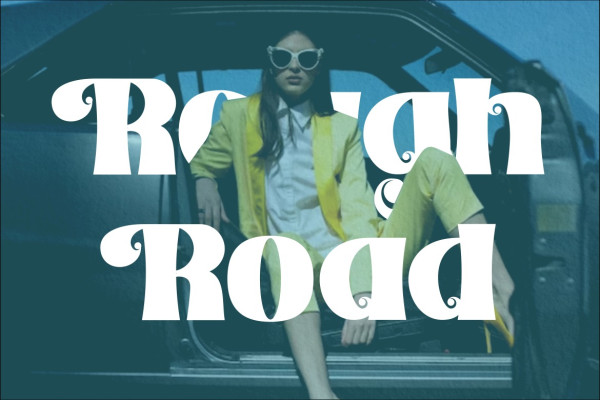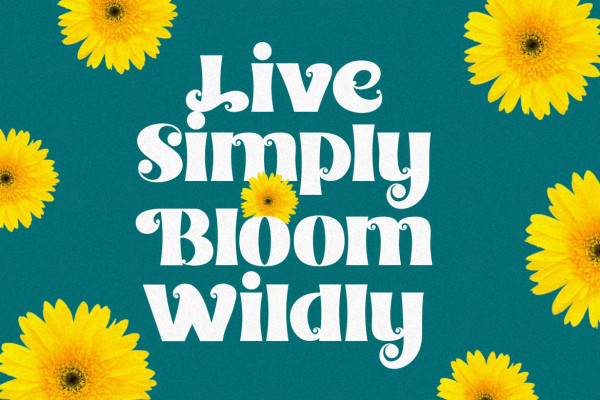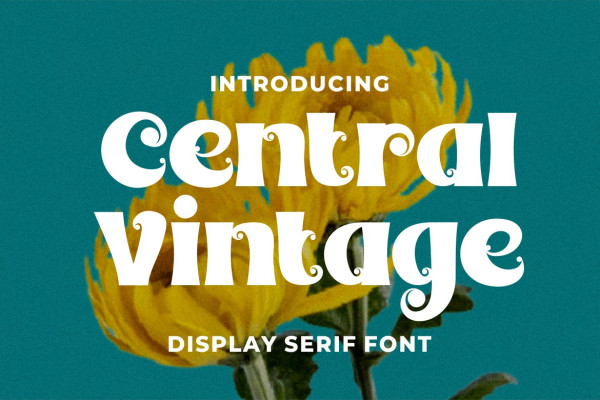
Central Vintage Font
Central Vintage Font – Display Font is a striking font that seamlessly blends the boldness of a display style with the groovy charm of vintage aesthetics. This font exudes a perfect balance of retro nostalgia and modern appeal, making it a versatile choice for a variety of design projects. With its bold and groovy serif style, Central Vintage is ideal for logos, quotes, posters, titles, product branding, invitation cards, printing materials, and any design that requires a bold and impactful font.
Central Vintage’s display style captures attention with its strong and bold appearance, while its groovy serifs add a touch of character and uniqueness. The vintage undertones create a sense of nostalgia, while the subtle modern elements give the font a contemporary edge. This combination allows Central Vintage to effortlessly adapt to various design contexts, making it suitable for both traditional and modern themes.
Central Vintage – Display Font is the perfect choice for adding a touch of boldness and vintage flair to your design projects. Its unique blend of groovy serifs, boldness, and modern elements offers a wide range of design possibilities. Whether you’re working on a retro-inspired poster, creating a strong and memorable logo, or designing an impactful quote, Central Vintage will enhance your designs with its characterful and versatile typography, ensuring your creations leave a lasting impression.